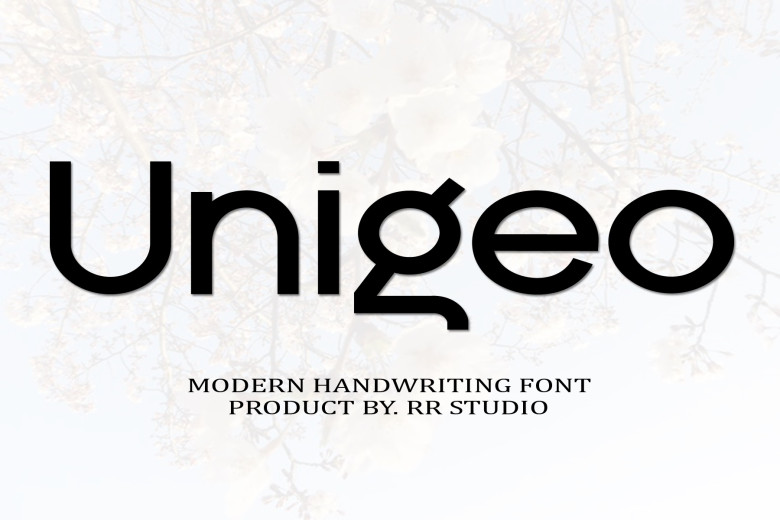
Unigeo Font
Unigeo is an elegant and chic sans serif font that makes an eye-catching statement in your designs, such as wedding invitations and thank you cards, greeting cards, quotes or business cards requiring handwriting details or logos with handwritten touches.
Unigeo Sans Serif Font